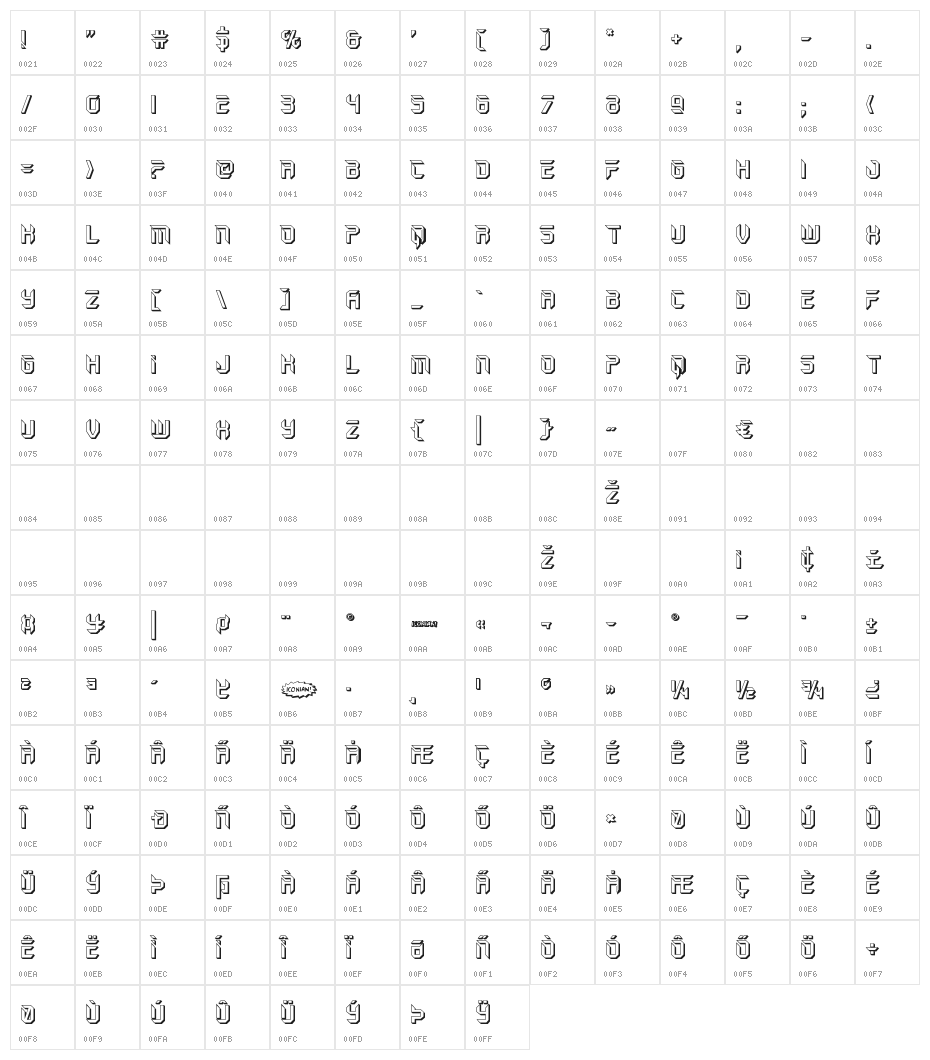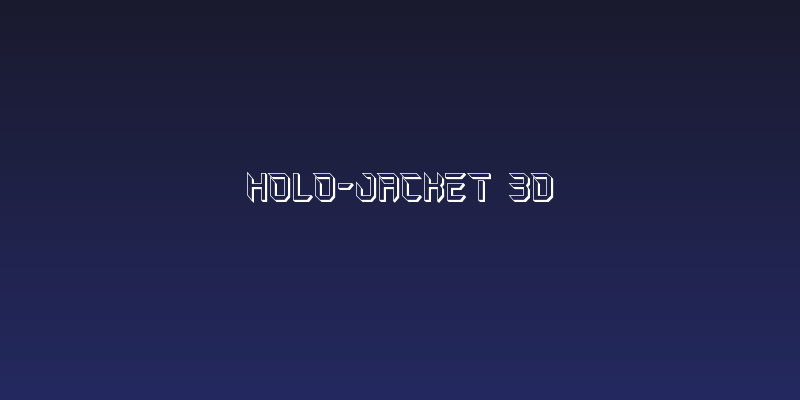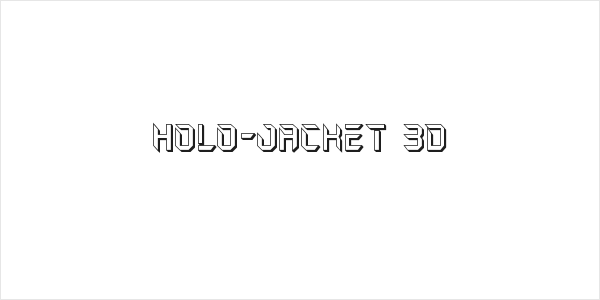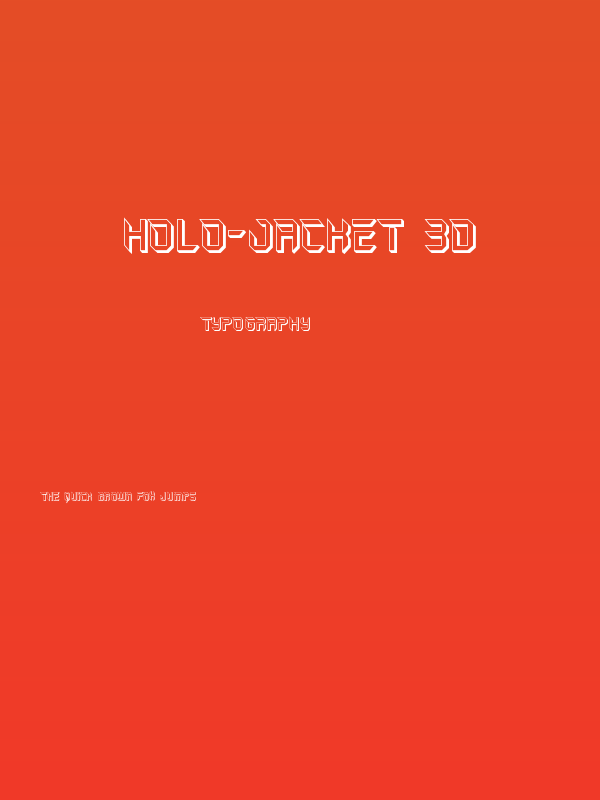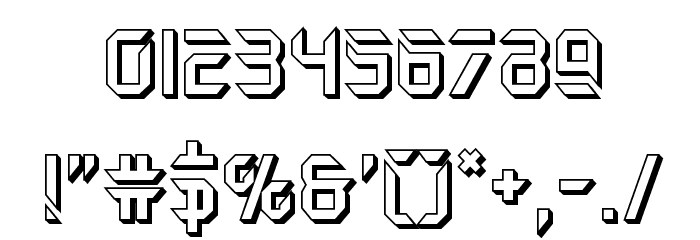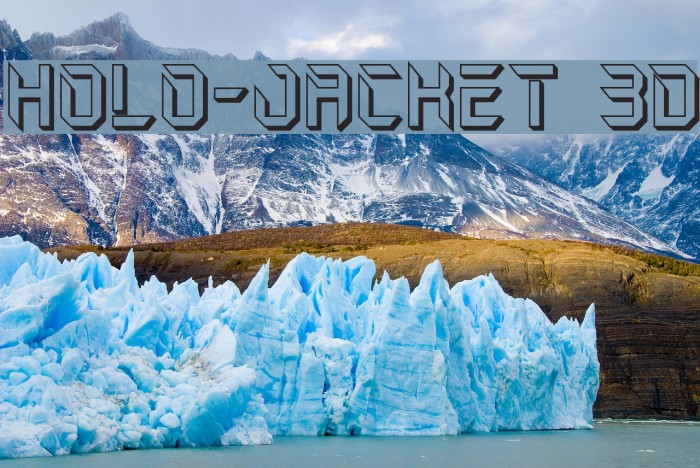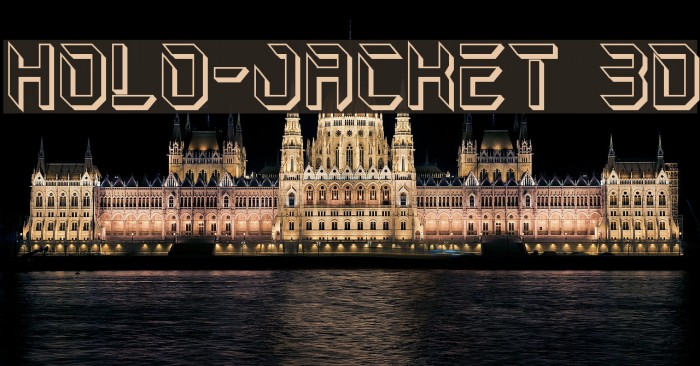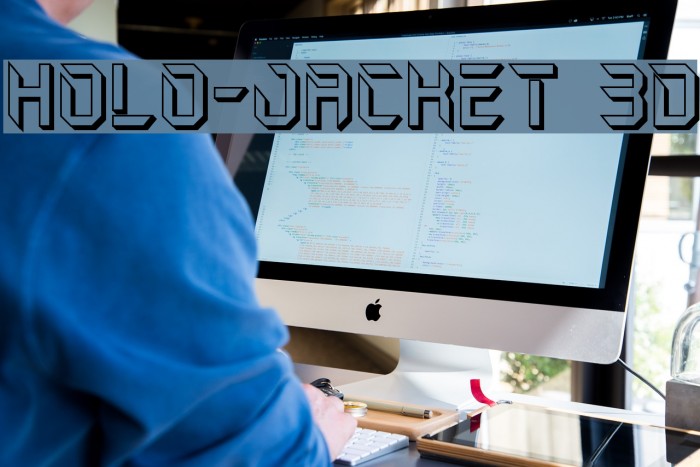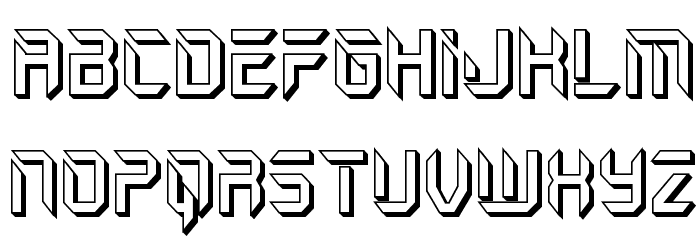
Holo-Jacket 3D Font
Holo-Jacket 3D Description
This font features a bold, geometric design with a 3D effect, giving it a futuristic and dynamic appearance. The characters are constructed with sharp angles and straight lines, creating a sense of depth and movement. The uppercase and lowercase letters share a consistent style, maintaining the bold, angular look throughout. Numbers and special characters are also designed to match this aesthetic, making the font versatile for various uses. The overall style is modern and eye-catching, suitable for projects that require a strong visual impact.
| Proposed Projects | Ideal for futuristic designs, tech branding, video game titles, and posters. |